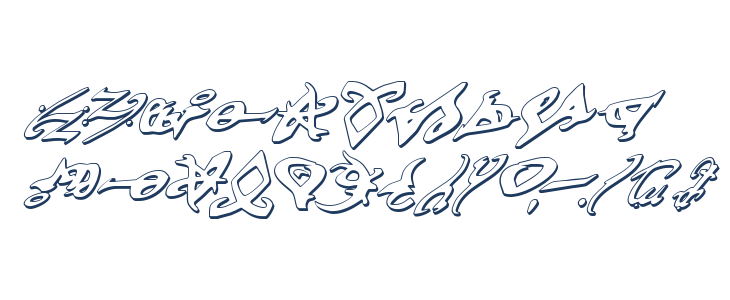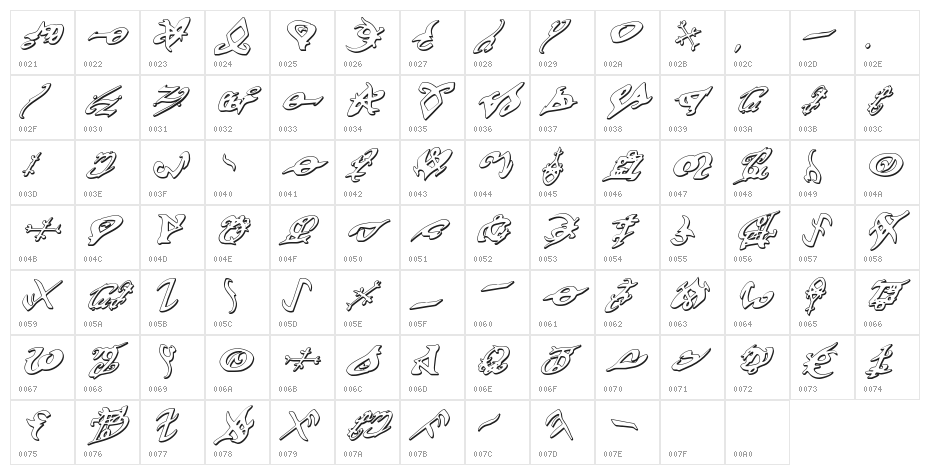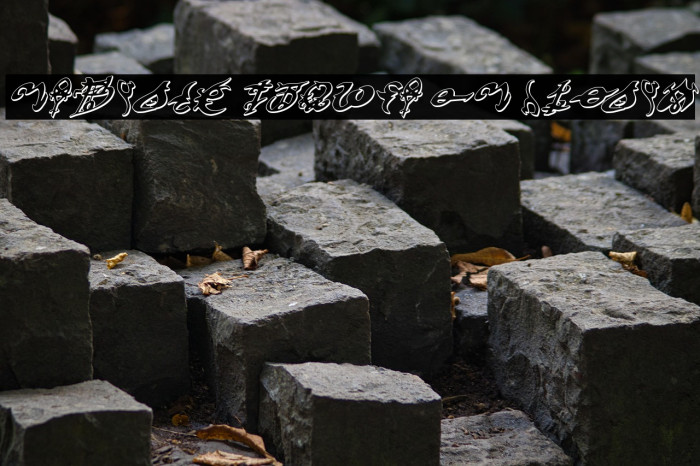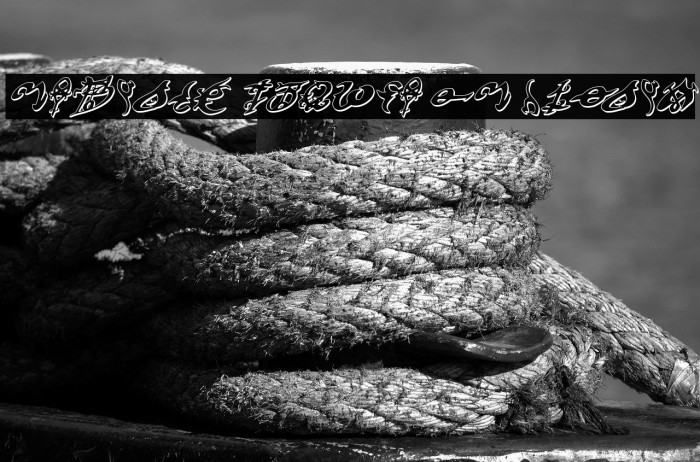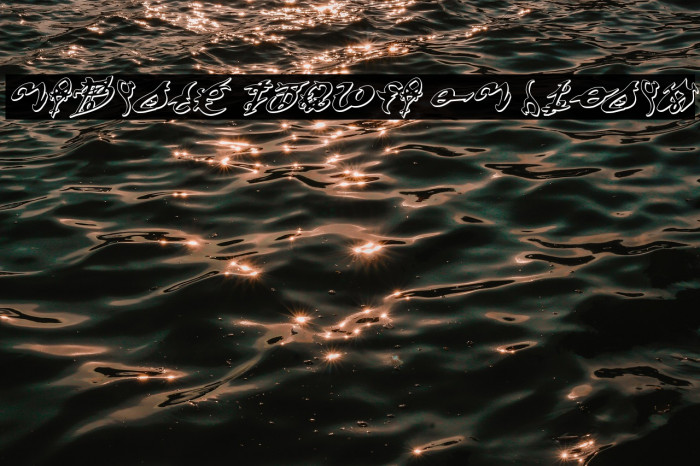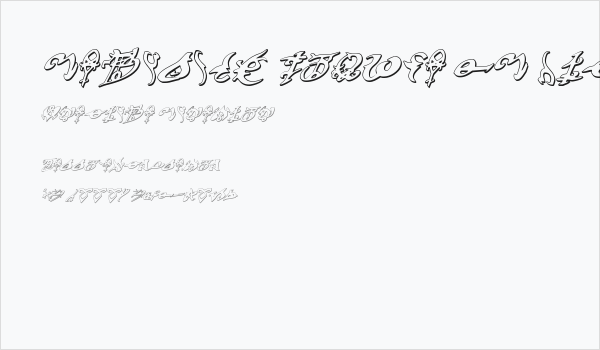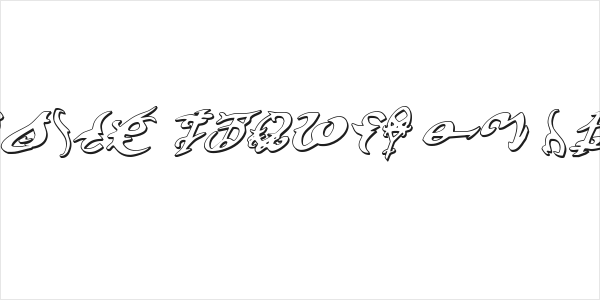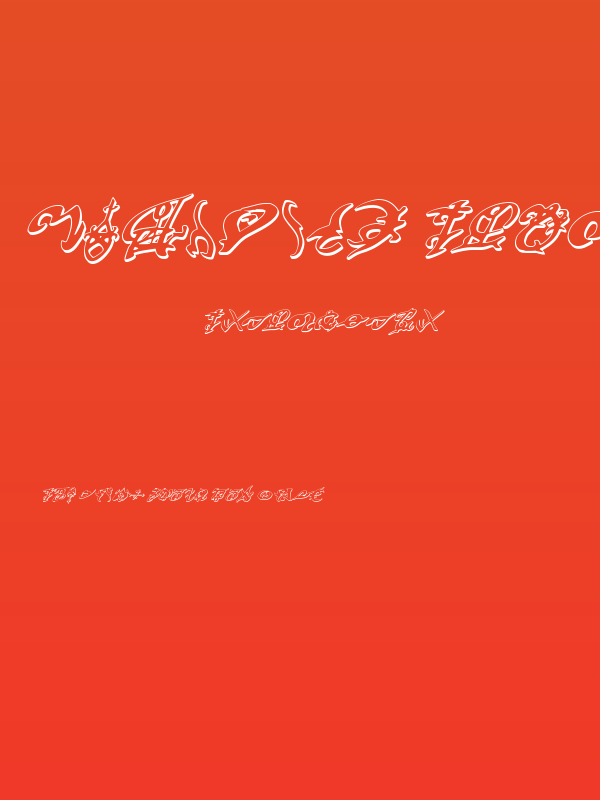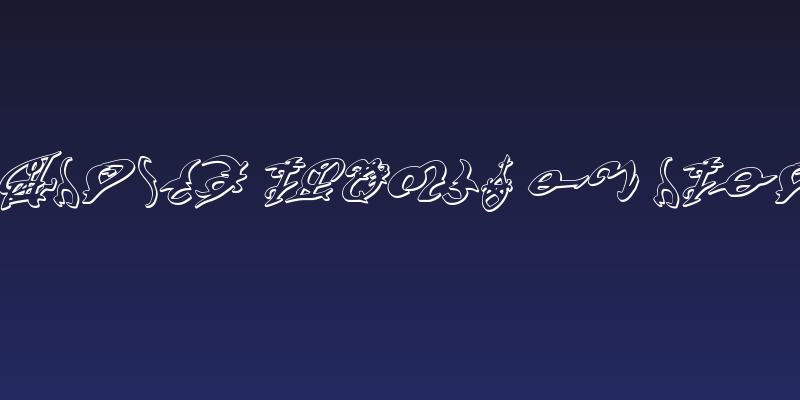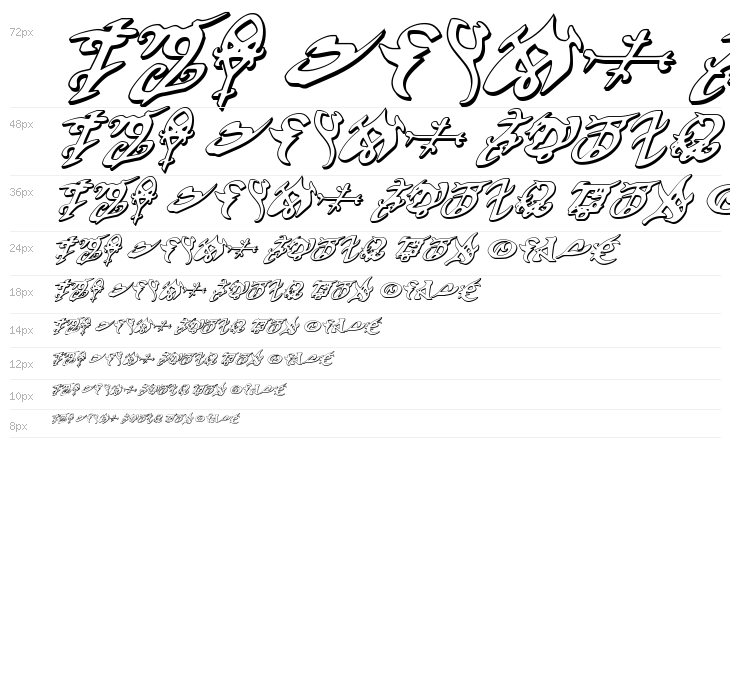
Devil's Tongue 3D Italic Font
Devil's Tongue 3D Italic Description
This font features a highly decorative and intricate design, characterized by its bold, three-dimensional appearance and italic slant. The letters are embellished with elaborate curves and flourishes, giving it a unique, almost mystical aesthetic. The font's style is reminiscent of gothic or fantasy themes, making it stand out with its dramatic and artistic flair. The characters are closely spaced, enhancing the compact and dense look of the text. The contrast in stroke thickness is high, with some parts of the letters being significantly thicker than others, contributing to the 3D effect.
| Proposed Projects | Ideal for fantasy-themed projects, book covers, video game titles, or any creative work requiring a dramatic and artistic typeface. |